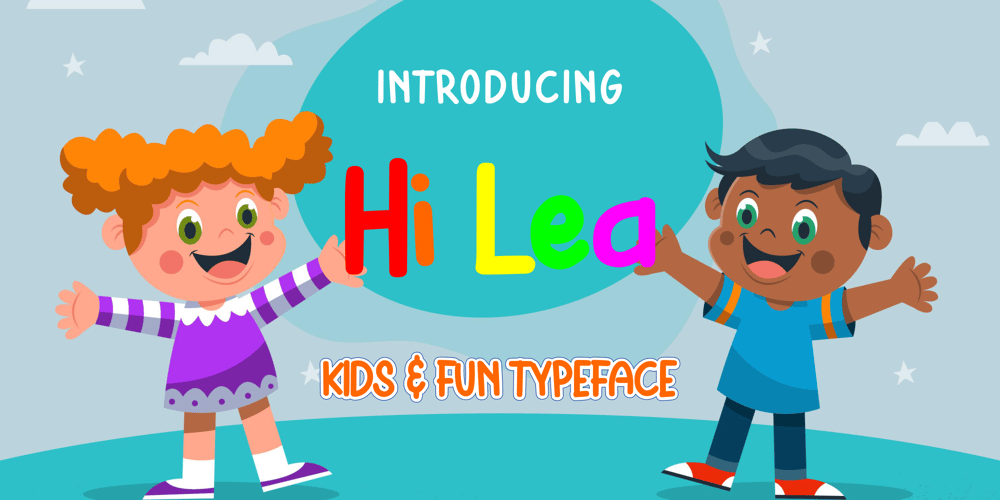
Hi Lea Font Family was designed by Zamjump and published by Zamjump. Hi Lea contains 1 styles and family package options. Hi Lea is kids and fun typefaces. It has an authentic handwritten look and bold feel which makes it perfect for digital branding and design. Use this font for logos, social media, birthday invitations, wedding decorations, invitations, home decor, websites, blogs, instagram, business cards, branding and more!